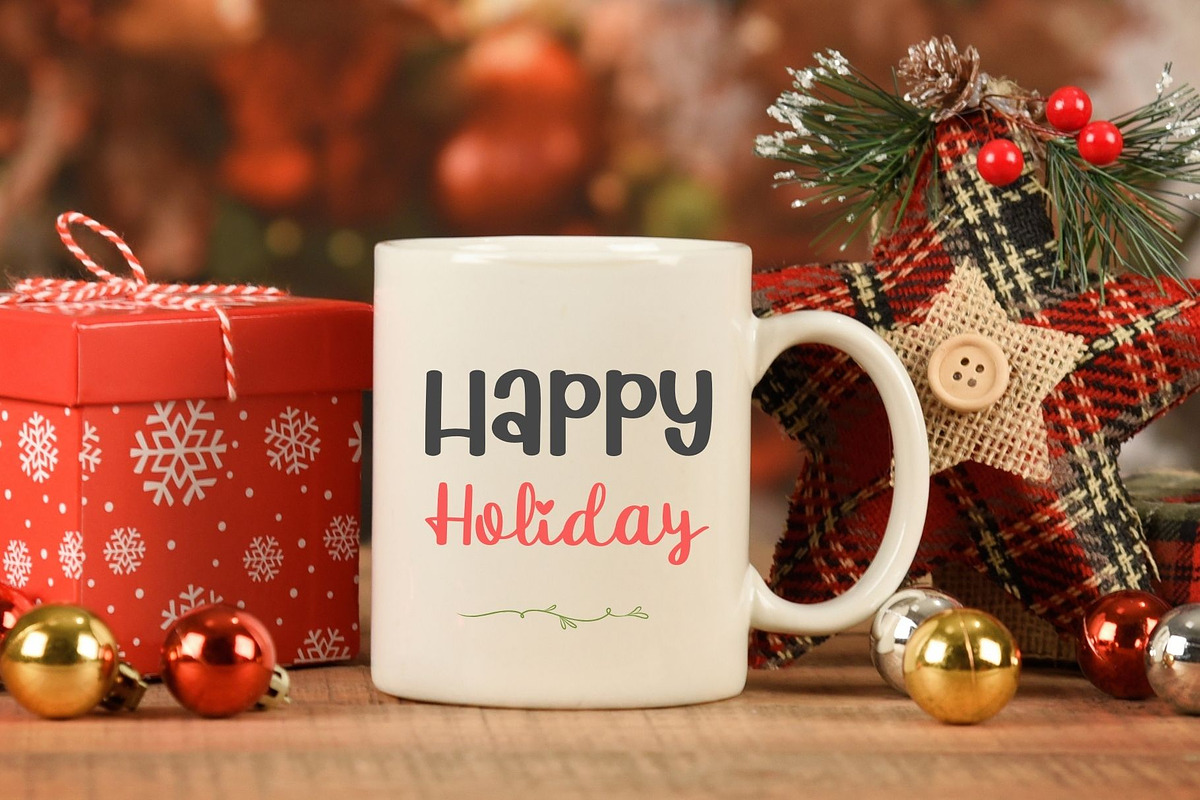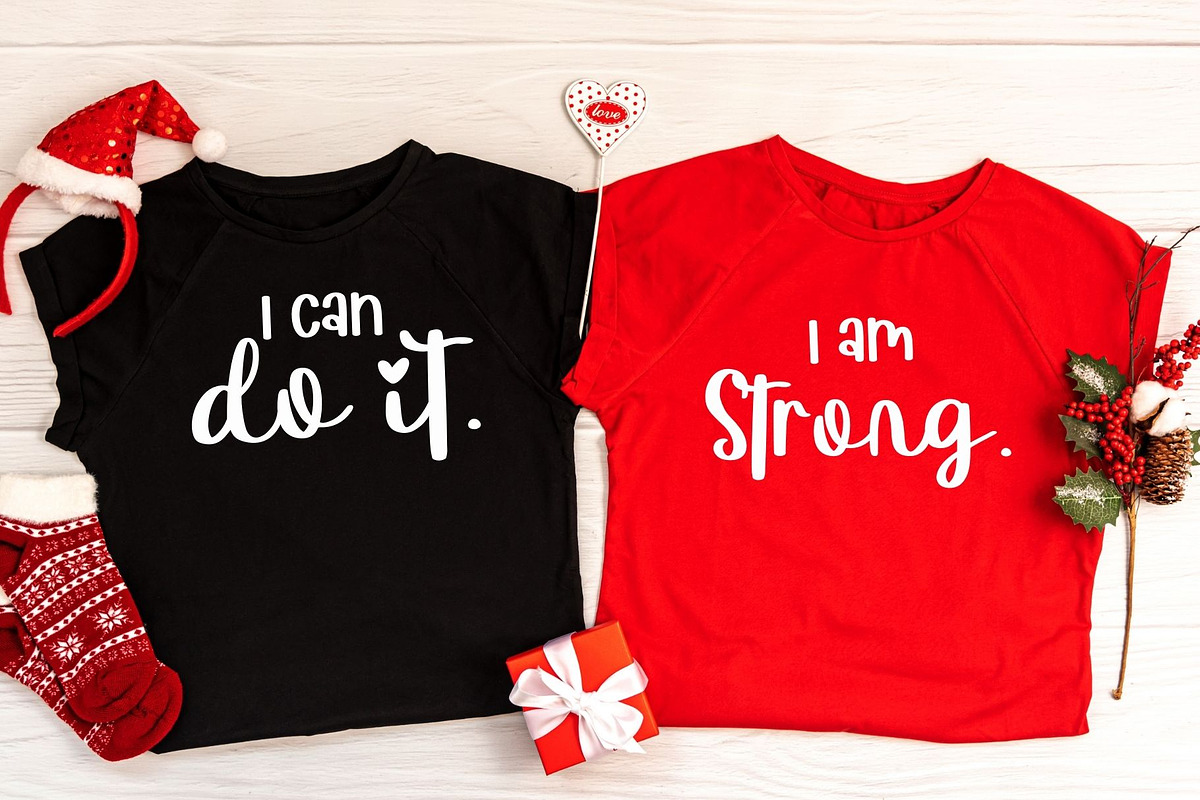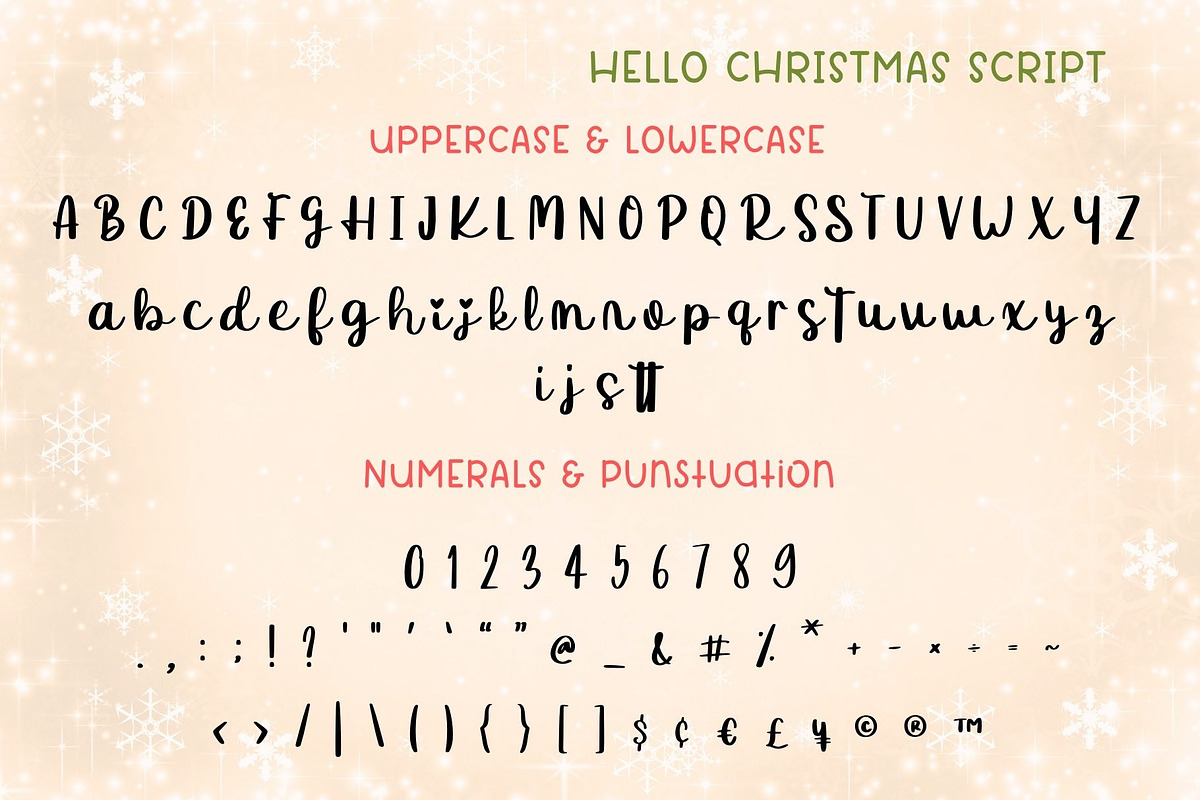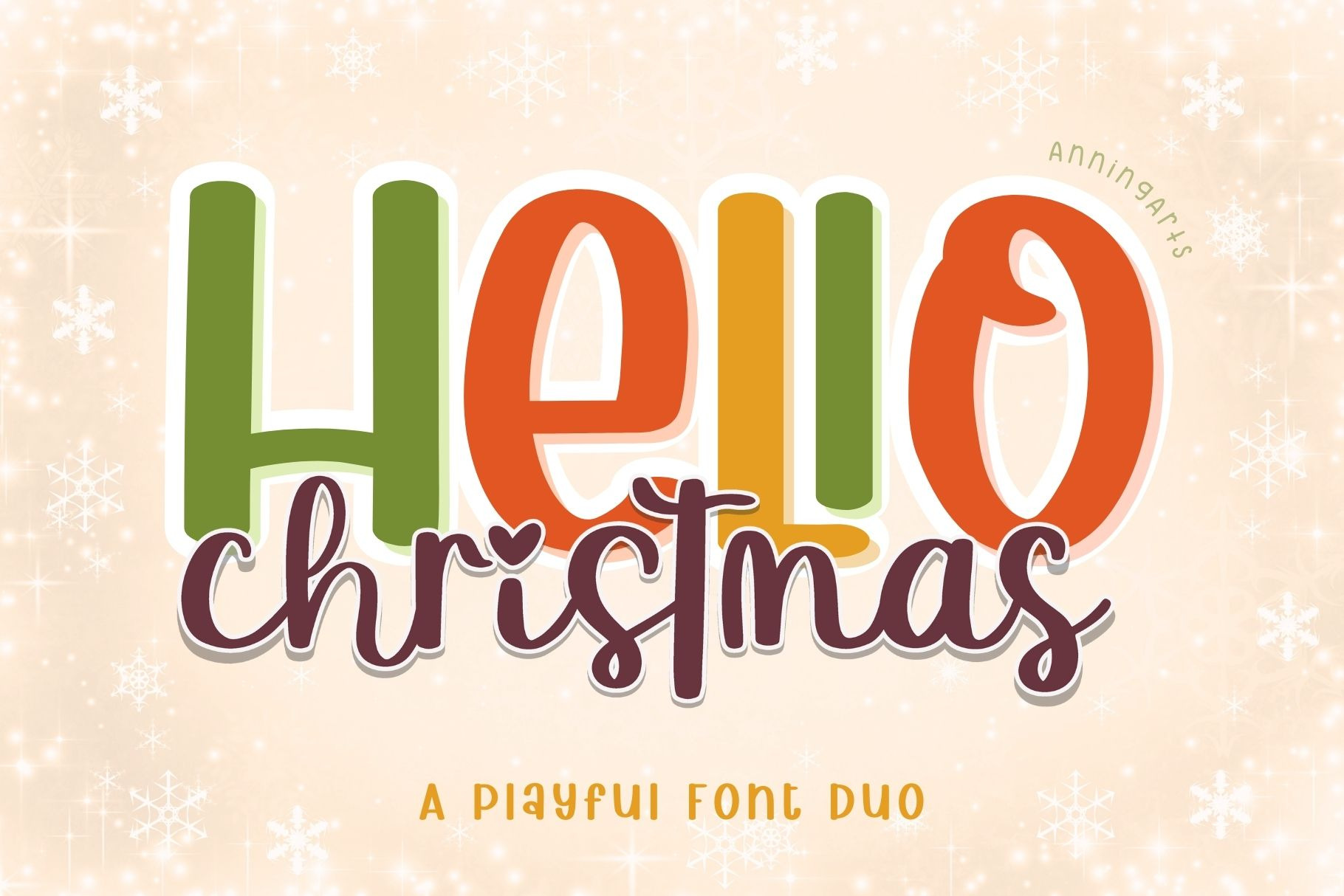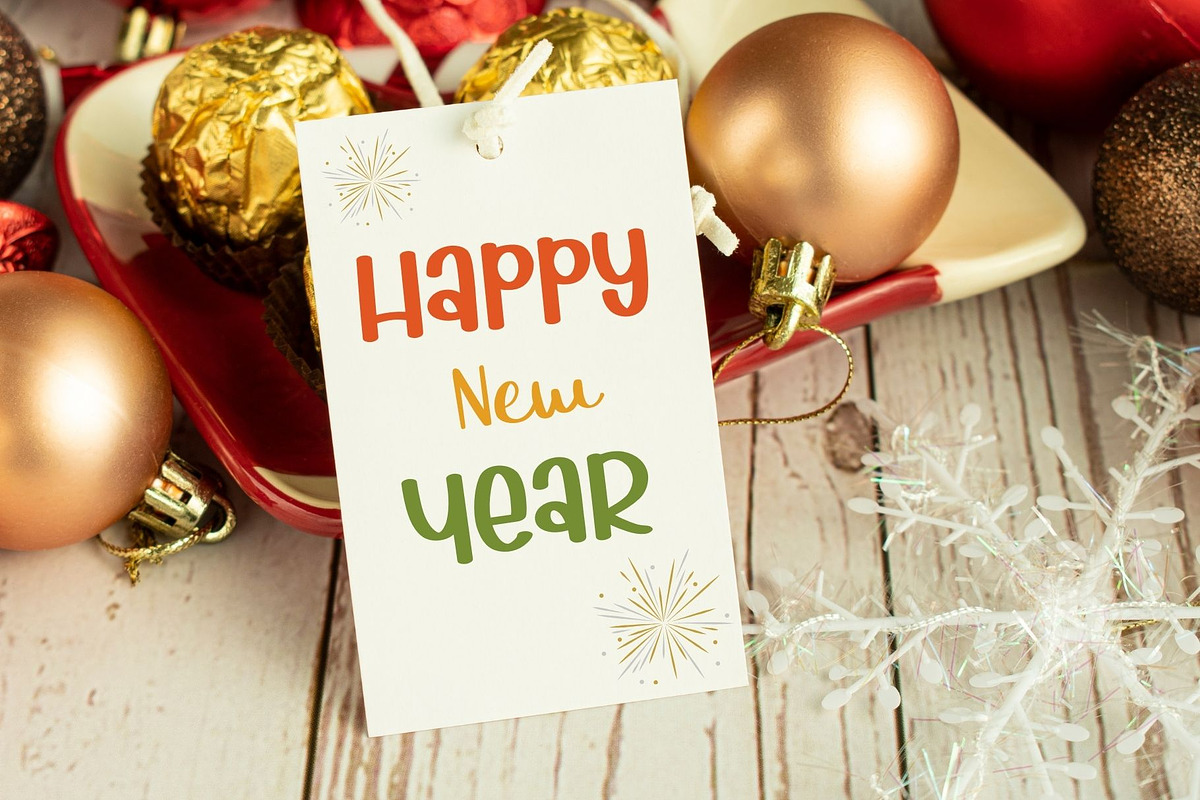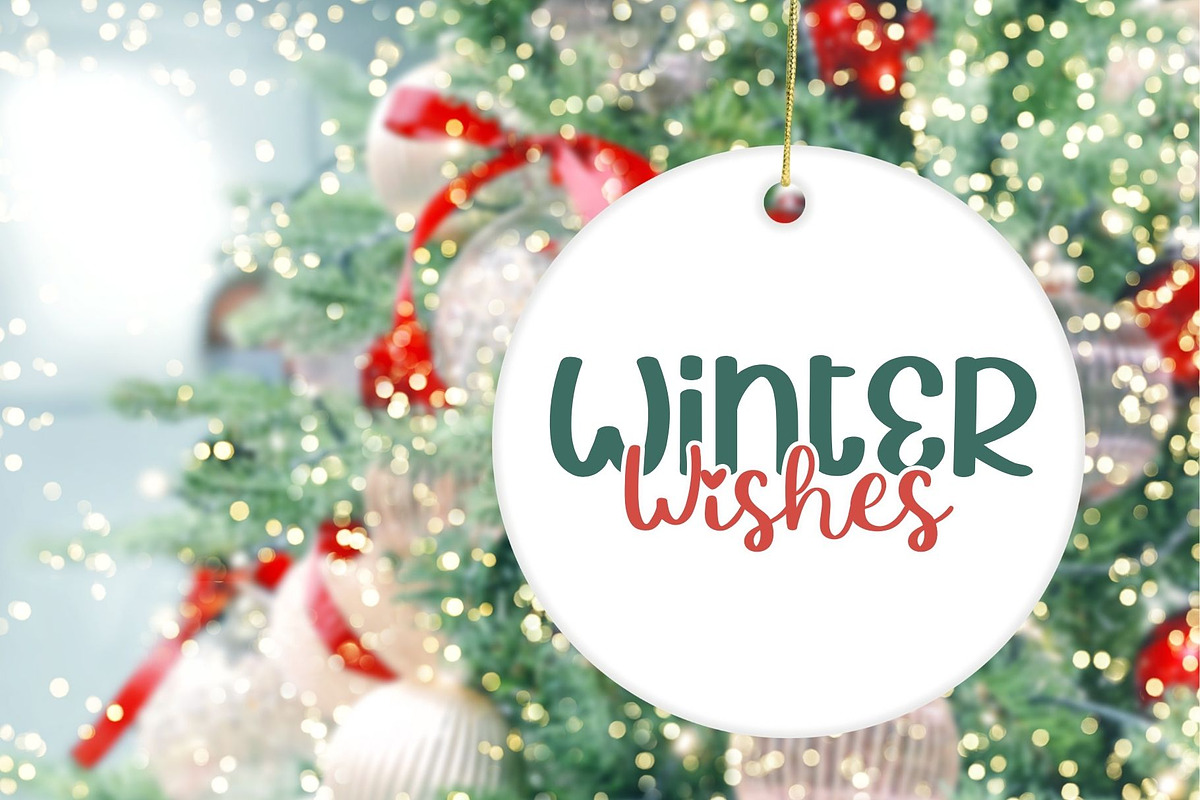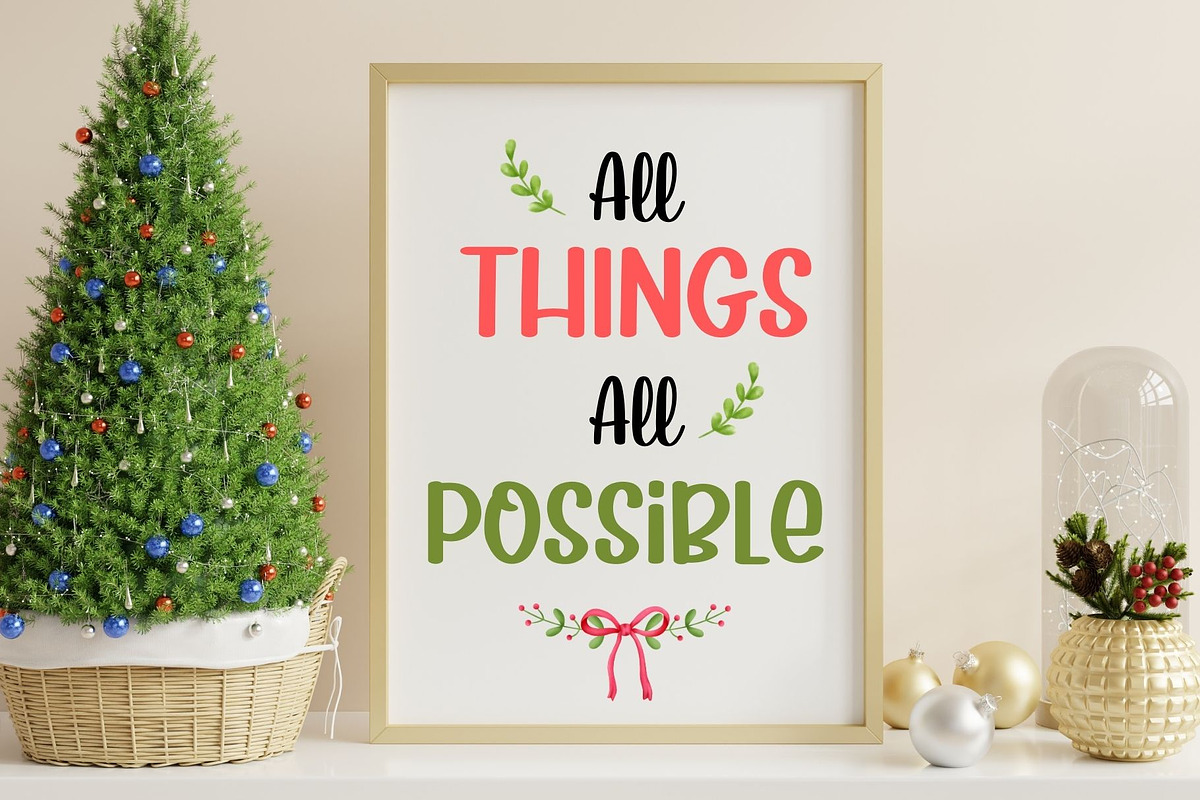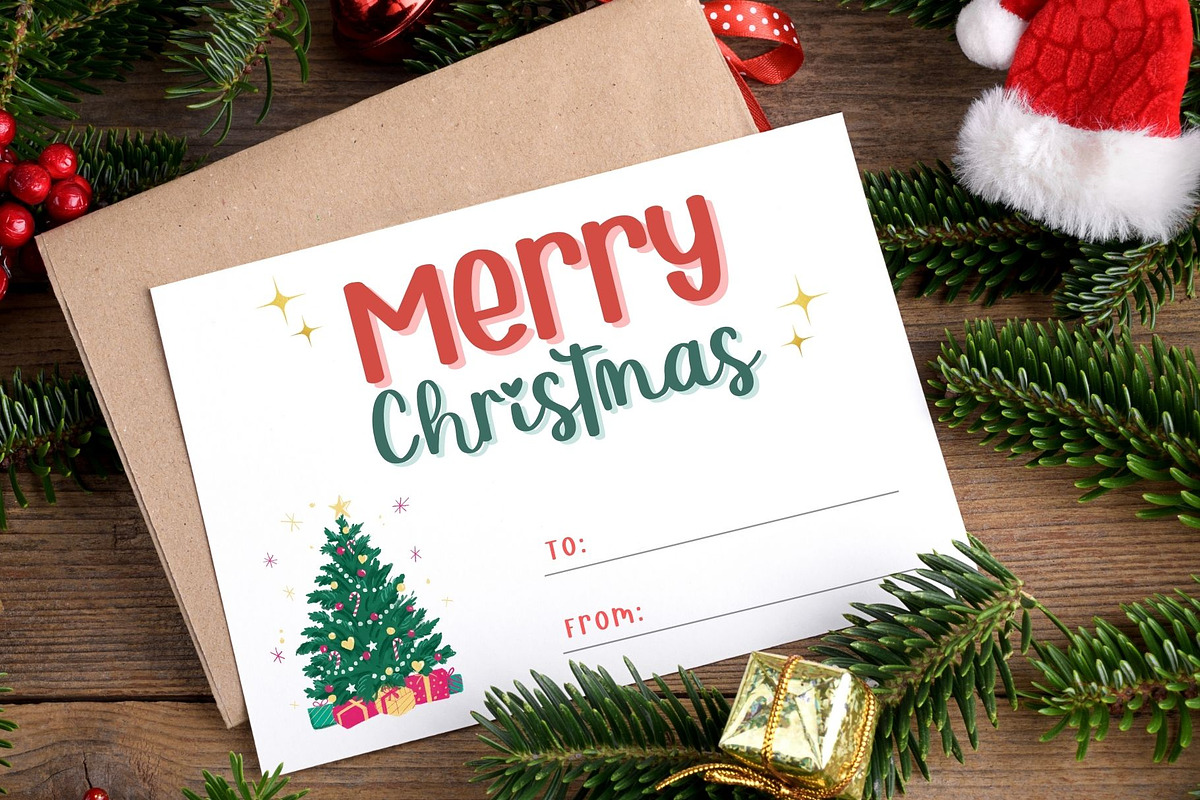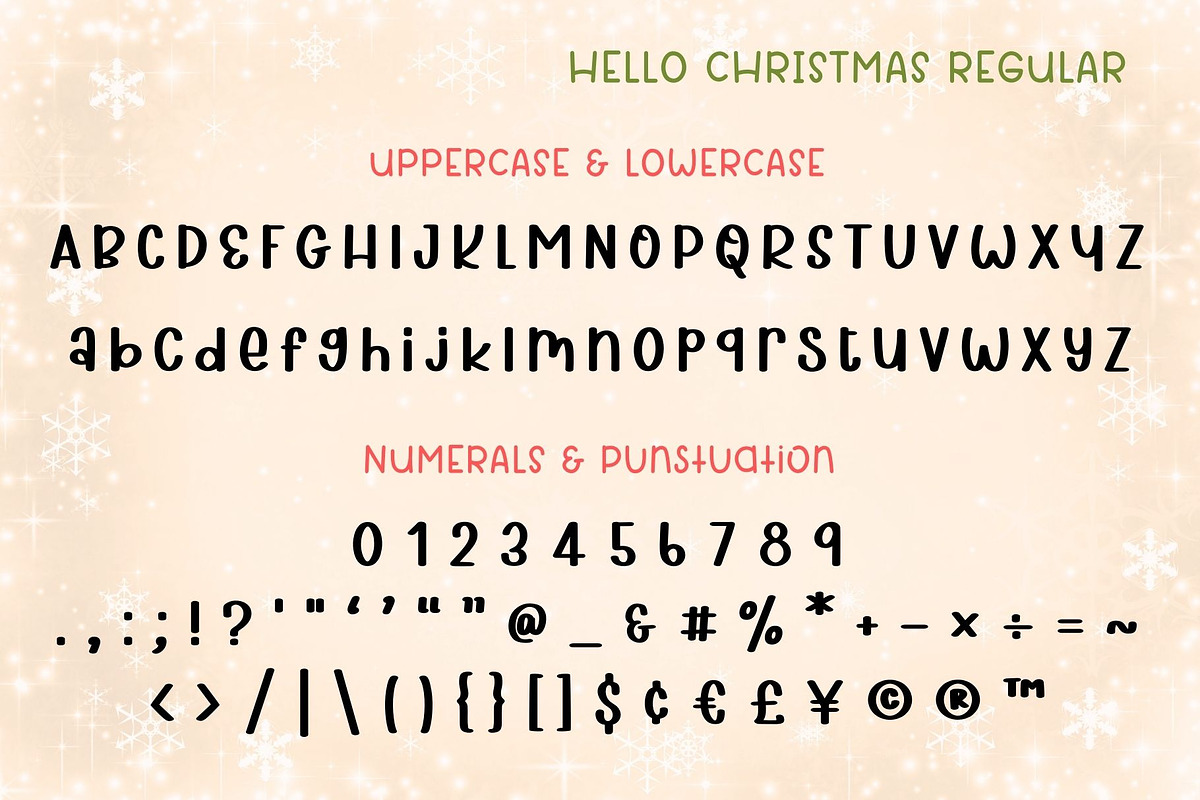
Hello Christmas - Font Duo
Hello Christmas is a playful font duo. This set consists of a script font and a handwritten font, providing a wide range of unique and attention-grabbing design choices. You can utilize this pair of fonts to create various designs, including mugs, bags, shirts, pillows, and more.